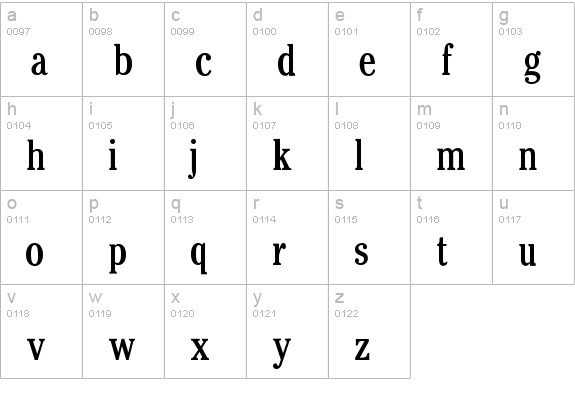
CheltenhamCondBook is a timeless and elegant font that exudes sophistication and refinement. With its slender and graceful letterforms, this font is perfect for conveying a sense of classic beauty and charm in any design project. The CheltenhamCondBook font offers a perfect blend of tradition and modernity, making it versatile for a wide range of applications. What makes CheltenhamCondBook even more appealing is that it is available for free download at FontsMarket.com. Now you can easily access this exquisite font and elevate your design projects with its exquisite aesthetic. Whether you are working on branding, editorial design, or any other creative endeavor, CheltenhamCondBook is sure to add a touch of elegance and sophistication to your work. Download CheltenhamCondBook today and let its timeless beauty enhance your designs.